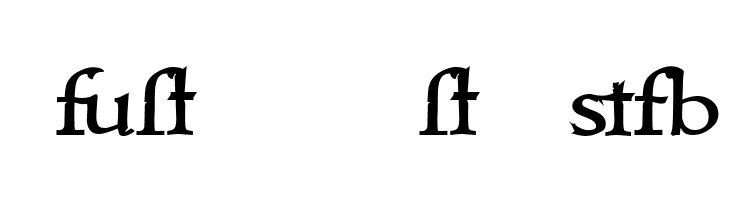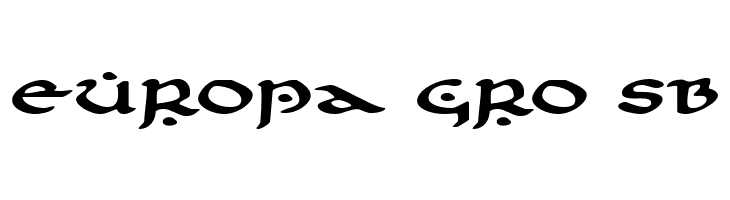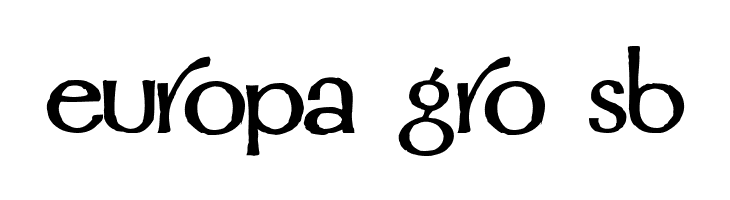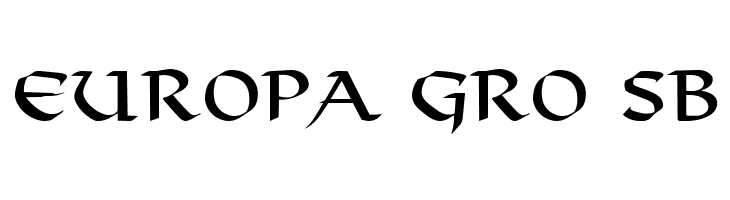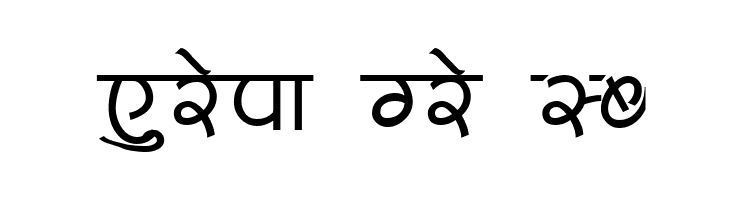
An elegant, flowing script font with dynamic stroke variations.
A dynamic and flowing script font with elegant, fluid letterforms.
A playful, hand-drawn font with tall, narrow letters and quirky details.
A playful and whimsical script font with flowing, interconnected letterforms.
A flowing, cursive font with elegant, script-like characteristics.
A graceful script font with elegant loops and swashes, ideal for sophisticated designs.
A bold, high-contrast serif font with sharp serifs and a modern twist.
A modern, handwritten script with a casual and flowing style.
A modern, handwritten font with a casual and flowing style.
A modern serif font with elegant, refined letterforms and pronounced serifs.
A flowing, elegant script font with a handwritten signature style.
A modern, playful font with dynamic curves and bold characters.
A bold, expressive handwritten font with fluid, cursive letterforms.
A sleek, minimalistic font with thin, geometric lines and a modern aesthetic.
A modern, geometric font with clean lines and a minimalist style.
A modern, geometric font with rounded edges and consistent stroke widths.
A bold, gothic blackletter font with intricate detailing and a medieval aesthetic.
A playful, artistic font with geometric and hand-drawn elements.
A bold, geometric font with a strong, condensed design and sharp angles.
A bold, angular font with a medieval, left-slanted design.
A playful, hand-drawn font with a whimsical and cartoonish style.
A bold, medieval-inspired font with sharp, angular serifs and a commanding presence.
A bold, gothic font with sharp, pointed edges and a medieval aesthetic.
An elegant, flowing script font with interconnected letters and a sophisticated style.
A flowing, cursive script font with elegant, interconnected characters.
A flowing, cursive script font with elegant, connected characters.
A bold, high-contrast Blackletter font with intricate, medieval-inspired designs.
A bold, angular font with a gothic, medieval flair.
A bold, decorative font with gothic and medieval influences, featuring intricate serifs and flourishes.
A decorative, medieval-style font with ornate uppercase and bold lowercase letters.
A decorative Gothic-style font with ornate, medieval-inspired characters.
A bold, gothic-style font with intricate, ornamental details.
A bold, gothic blackletter font with ornate, medieval-inspired details.
An ornate blackletter font with intricate, medieval-inspired letterforms.
A bold, gothic-style Blackletter font with intricate detailing.